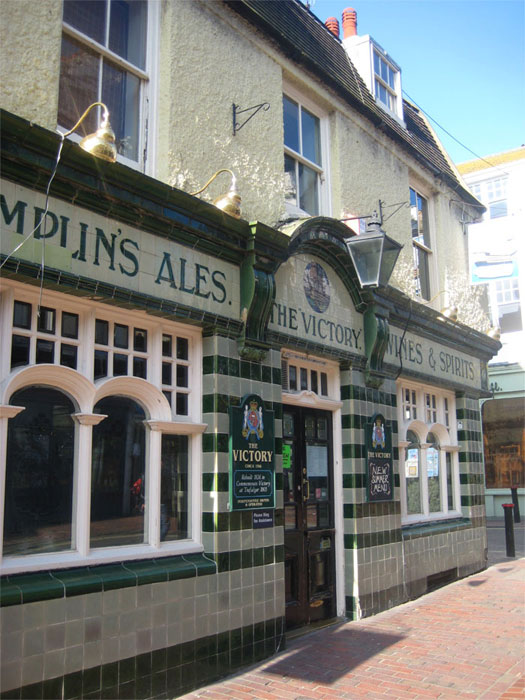
Victorian Brighton , London's Seaside town
A had a few days away with my family last weekend in a city called Brighton about 1 hour west of London.
Brighton is an old city with many charming buildings and lots of character. Attached are a few of the original old signs still surviving in this area. There are so many but would take ages to post here.
Just thought I would share these pics with you guy's as you may never get a chance to see them due to so many old buildings and signs disapearing from our towns and cities.
Thanks for sharing. The gold signs were nice but that transom caught my eye. I like the way they bordered the little floral panels and I also caught the way the used a strap cut to section the window, much like a lead line appears in stained glass. Pretty amazing to know that the ornately decorated transom piece was just an ordinary piece of sheet glass to begin with.
Here are some more Pat.
Thats it! Some really nice silverstain on the interior doors I think the suround is called Pie cuts. These would have been kiln fired.
Oh sure! Just slap that No Smoking sticker right over that toned acid etched panel...
This is what I'm talking about!
Can anybody tell me what's wrong with this picture?
Amazing Davey Boy......just amazing work. Will meet you there in a few weeks right. This is a spot to visit on my high priority list and many thanx for the photos!!
I know Larry it does make you wonder if anyone really does see this stuff, I guess they just don't see it as art but just some window door panel in a pub. When I asked the guy who was running the bar if it was ok to take a photo he just said why do you want a photo of that door,he probably had been working there for years and never even thought anything of it or even noticed it. I would rather be creating these works than pulling a pint all my life. I'm not bitter!